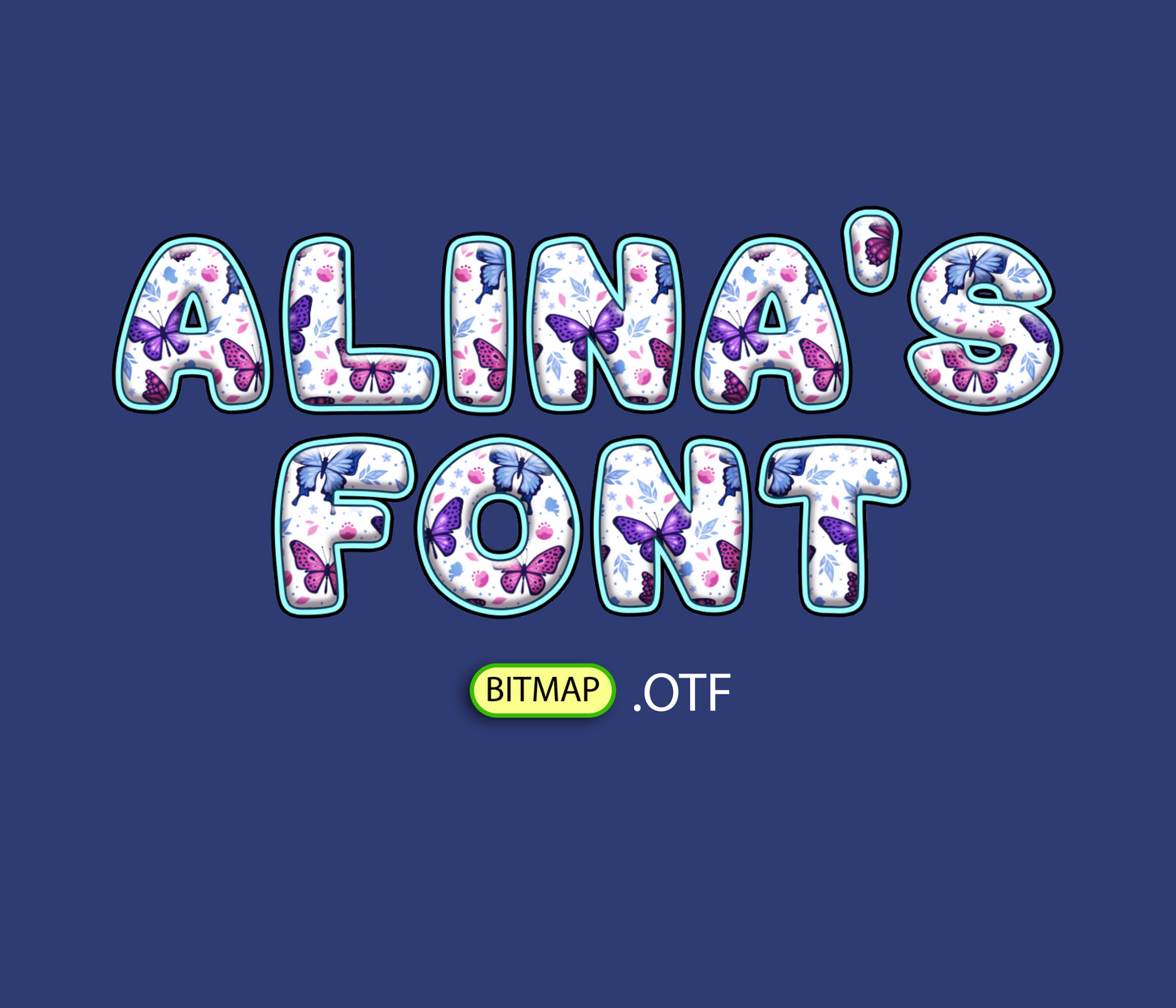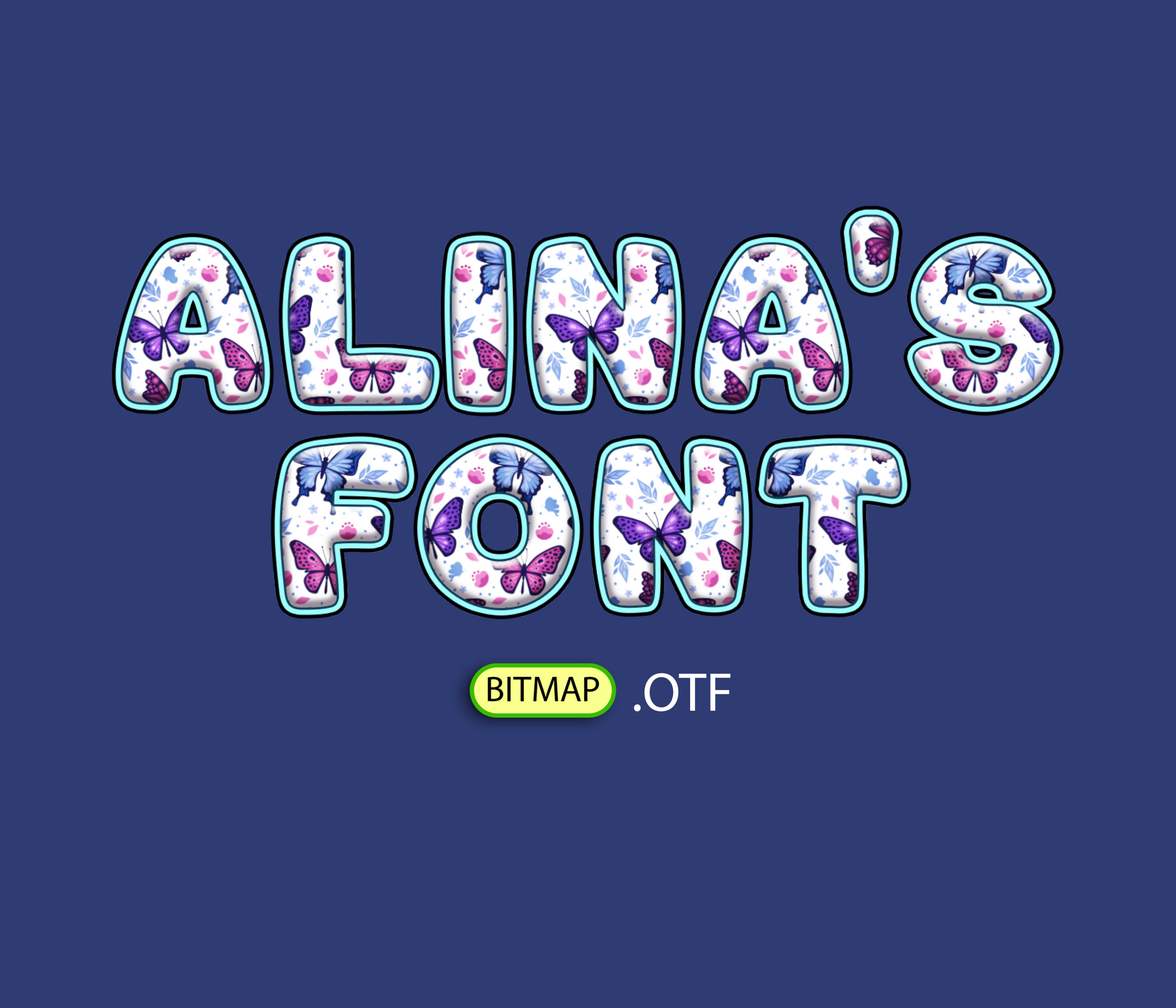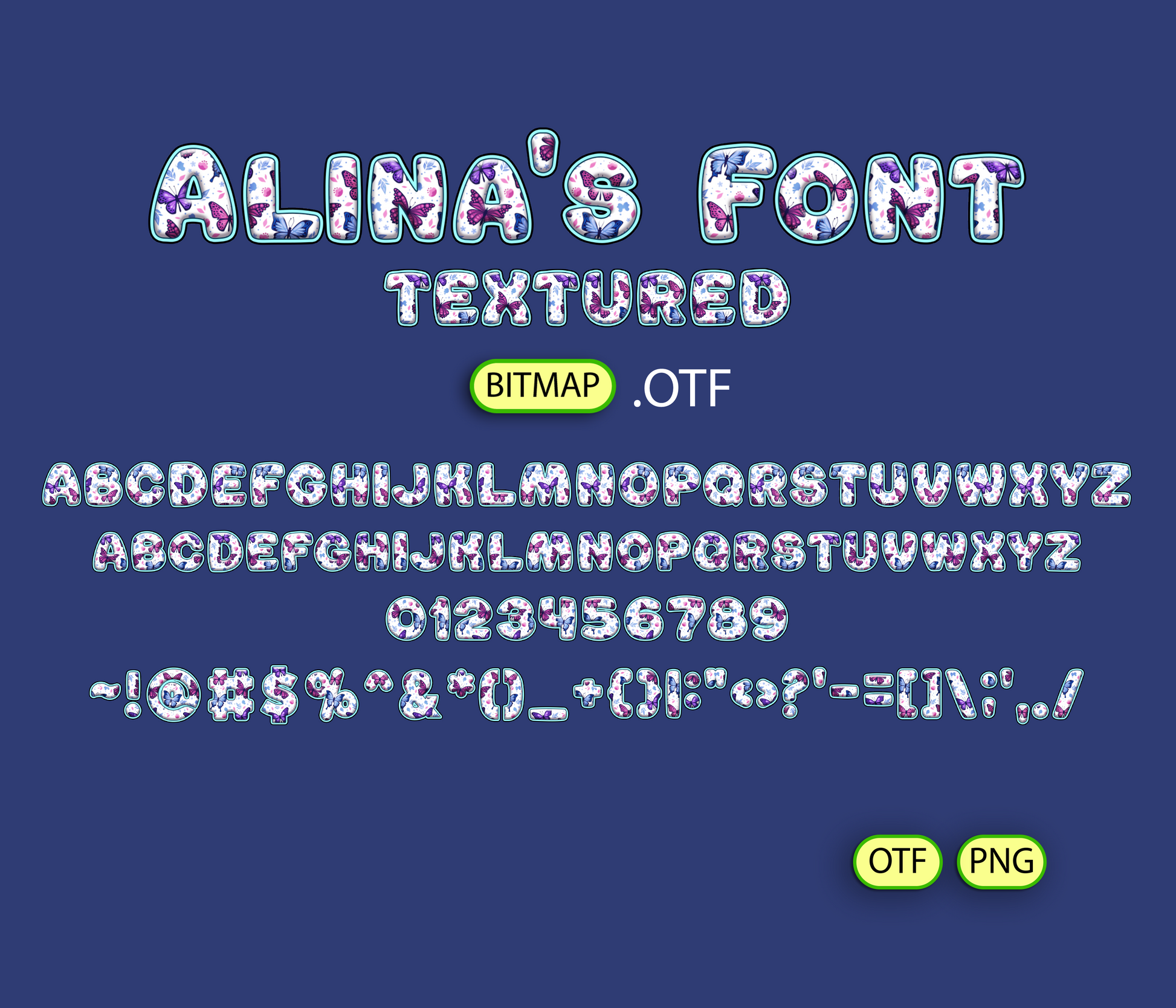
Butterfly Wings Edition Pattern Font
Butterfly Typeface Textured Wings Edition
Step into the enchanting world of nature's most graceful creatures with our Butterfly Typeface, capturing the essence of delicate wing patterns, vibrant colors, and ethereal flight. Perfect for garden centers, nature photographers, children's book illustrators, and creative professionals, this font brings the magical, transformative spirit of these winged beauties to your projects. Create captivating signage, nature-themed products, or digital content with the colorful, elegant grace of summer gardens and blooming wildflower meadows.
Our Butterfly Typeface features graceful wing-inspired curves, delicate scale patterns, and flowing characters reflecting the elegant and transformative aesthetic of these beloved pollinators. Ideal for:
- Nature Business: Create appealing logos, packaging, and promotional materials for butterfly gardens, botanical centers, and eco-friendly lifestyle brands
- Children's Design: Perfect for educational books, metamorphosis-themed party decorations, and learning materials that celebrate transformation and natural beauty
- Digital Media: Enhance websites, blogs, and social media with graceful headers and graphics that express freedom, beauty, and natural wonder
- Educational Content: Add authentic character to science materials, butterfly guides, and promotional materials for conservation and habitat preservation projects
- Personal Projects: Bring outdoor charm to greeting cards, craft projects, and home decor inspired by the aesthetics of butterfly gardens and flowering landscapes
Our Butterfly Typeface includes textured and non-textured variants, ensuring compatibility with all software, including Canva. This feature allows easy incorporation into designs for users of all skill levels.
Many seek an online font generator to mimic the look of the Butterfly Typeface. Steer clear! No generator can match the quality of our font, which comes in two versions: a textured colored font and a simple version, perfect for cutting machines.